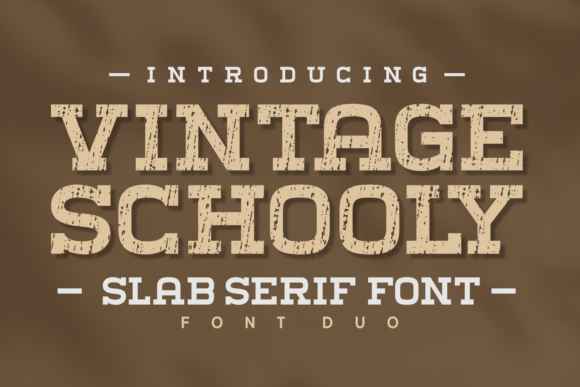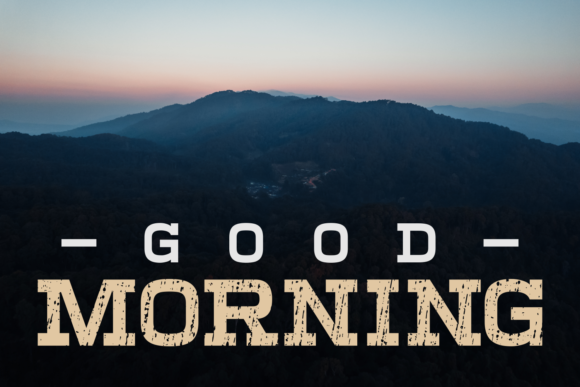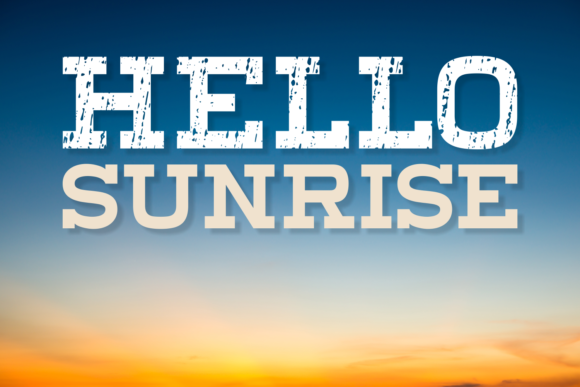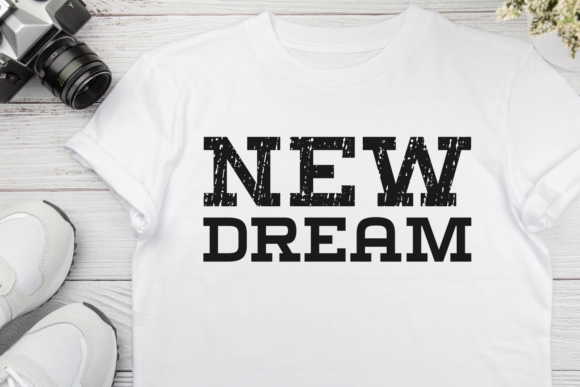
Vintage Schooly
Vintage Schooly: A Retro Slab Serif Font
Vintage Schooly is a retro slab serif font available in Solid and Regular versions. This vintage-inspired typeface is perfect for creating posters, quotes, t-shirts, covers, movies, albums, and books, adding a nostalgic touch to your designs.
Key Features of Vintage Schooly
• Retro Design: Offers a nostalgic and vintage look suitable for various applications.
• Slab Serif Structure: Features thick, rectangular serifs typical of slab serif fonts.
• Two Versions: Available in Solid and Regular styles for versatile use.
• Versatile Application: Ideal for both print and digital media projects.
Ideal Uses for Vintage Schooly
Vintage Schooly’s unique characteristics make it particularly well-suited for:
When incorporating Vintage Schooly into your designs, consider these tips:
• Use for headlines or short blocks of text to showcase its retro style.
• Experiment with both Solid and Regular versions to create visual hierarchy.
• Utilize its vintage appeal to evoke nostalgia in your projects.
Vintage Schooly is an excellent choice for designers looking to add a retro slab serif font to their typographic toolkit. Its ability to bring a nostalgic touch to various design projects makes it stand out in the world of typography. Whether you’re working on vintage-inspired branding, creating layouts for album covers, or developing content that requires a touch of nostalgia, Vintage Schooly offers the perfect blend of style and functionality.
Furthermore, Vintage Schooly’s unique design allows it to shine in various contexts. From retro-inspired designs to more contemporary layouts that need a touch of vintage charm, this font can elevate your projects. Its striking yet functional style works particularly well in designs that aim to evoke memories of bygone eras.
In conclusion, Vintage Schooly is a font that truly captures the essence of retro creativity and impact in typography. Its ability to work well in both minimalist projects and more elaborate layouts showcases its flexibility. For those looking to add a touch of vintage charm to their work, Vintage Schooly can enhance themed creations with its distinctive style. It’s the perfect choice for designers seeking to make a strong, nostalgic impact across a wide range of creative projects.